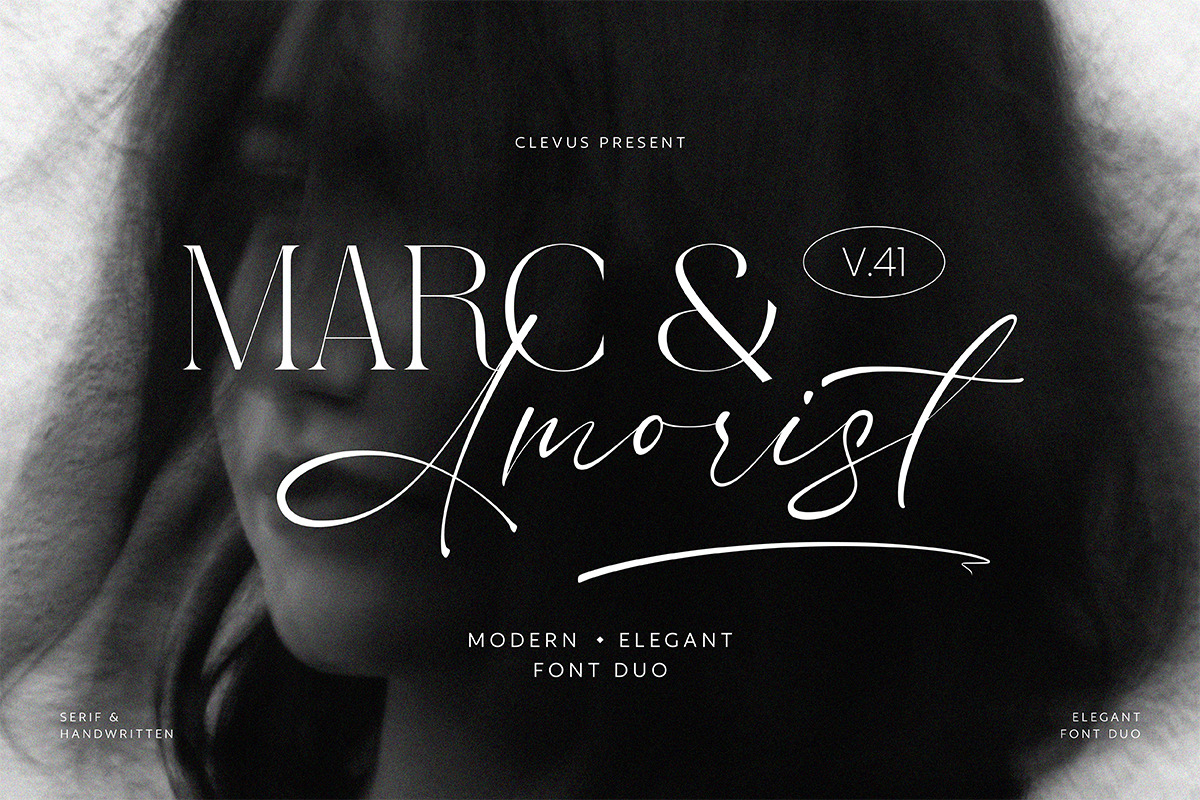
March & Amorist - Elegant Font Duo
Proudly present Marc & Amorist.
Marc & Amorist Font Duo is a unique font design consisting of a combination of a classy serif font and a classic script handwritten font. It is specifically created to cater to the design needs of elegant and feminine themes, such as in magazines or branding materials. The serif font has a classic and timeless character, while the script font is designed with a personal and human touch, giving a modern and creative feel. This font duo is perfect for use in various design media such as magazines, books, posters, brand identities, logos, and more. Suites for wedding, event and campaign. By choosing Marc & Amorist Font Duo, you can add a touch of professionalism and modernity to your designs, while also providing quality and character to every design you create.